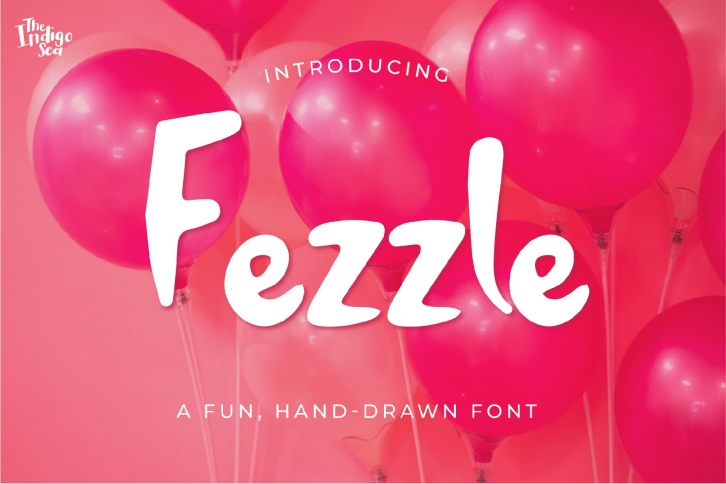
Fezzle is a fun and adaptable handwritten font. Whether you are using it for cartoon-related designs, children games, quotes, titles, brand names, book covers, posters, or just any creation that requires a touch of joy, this font is a great choice.